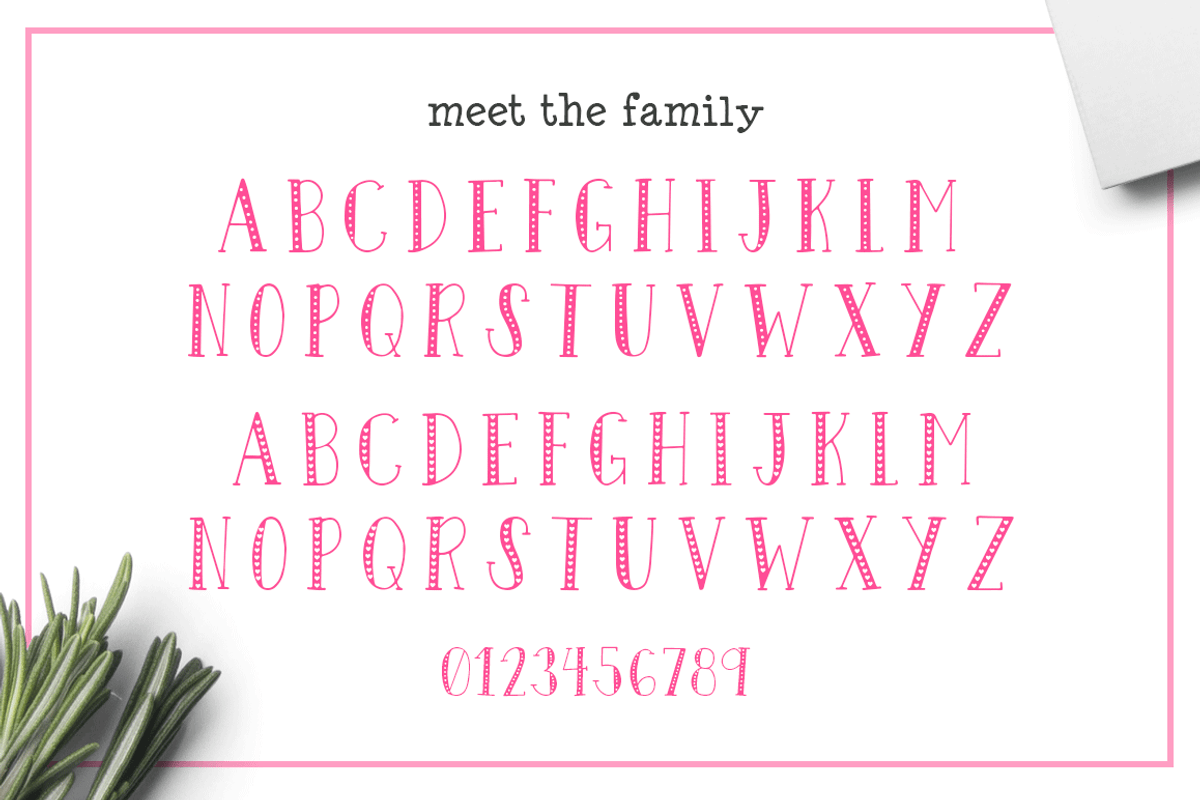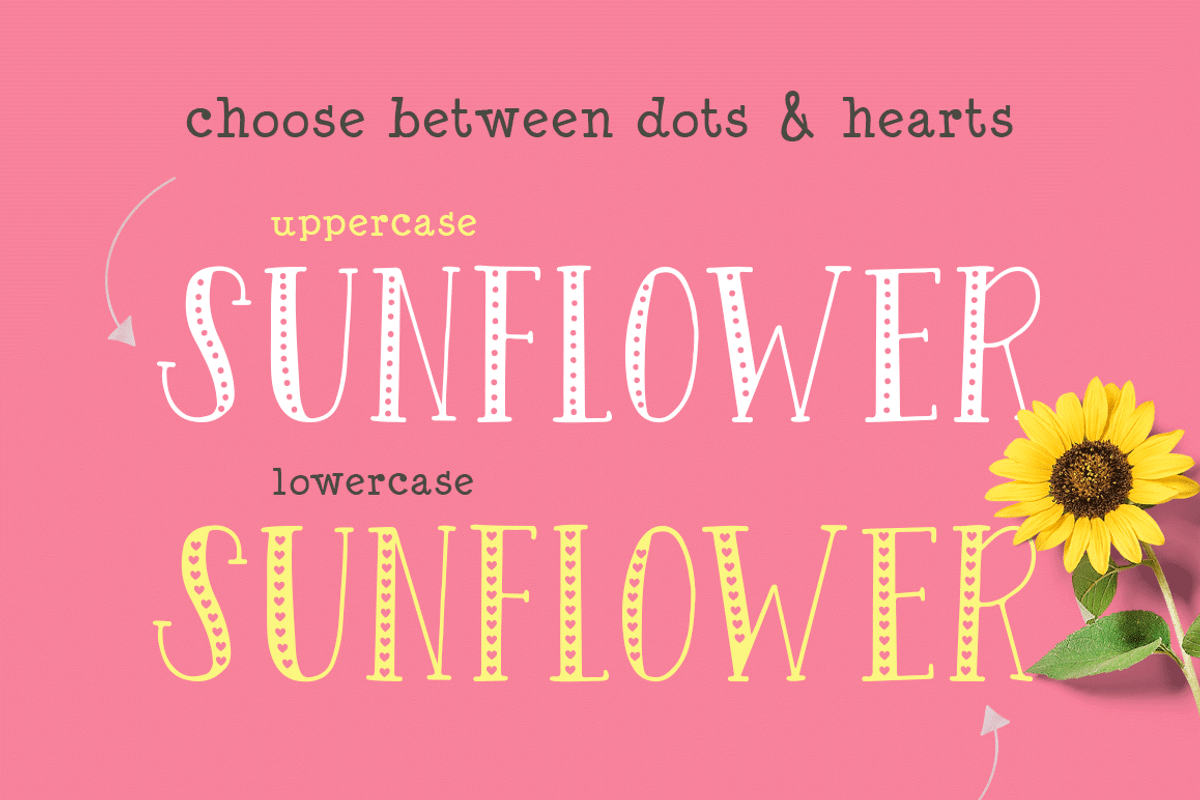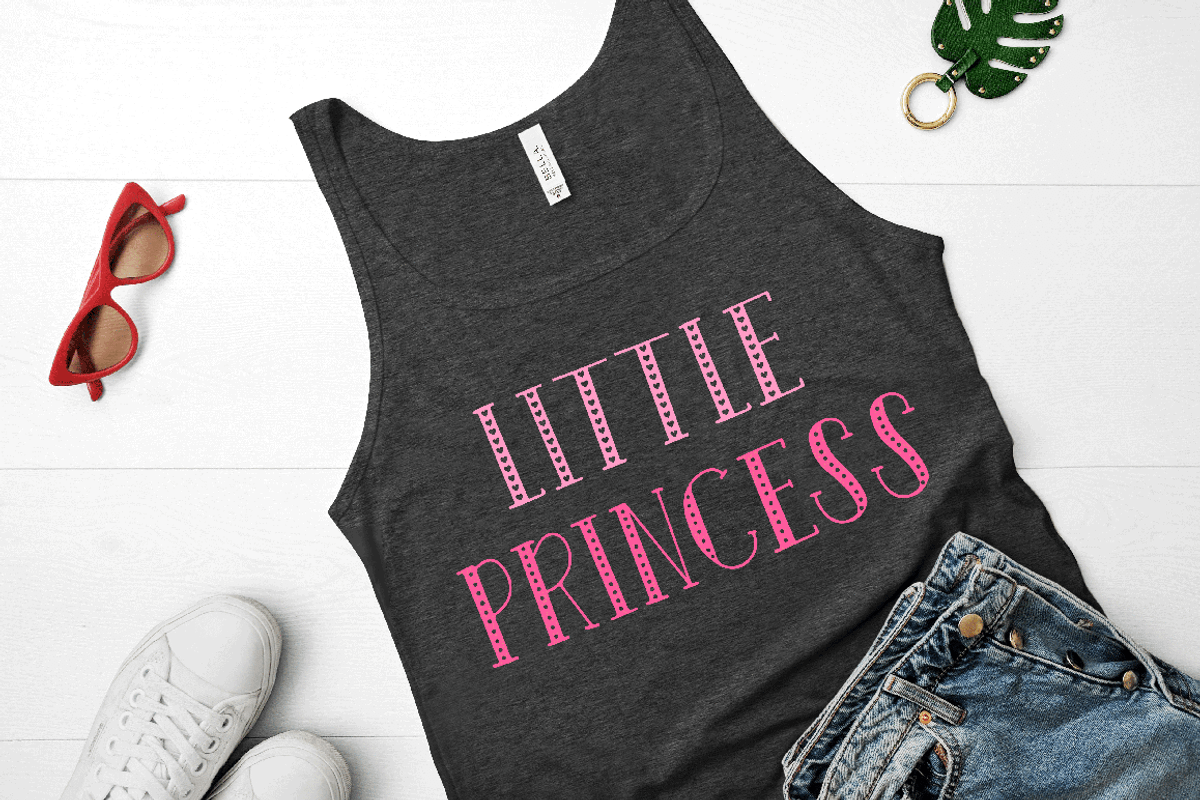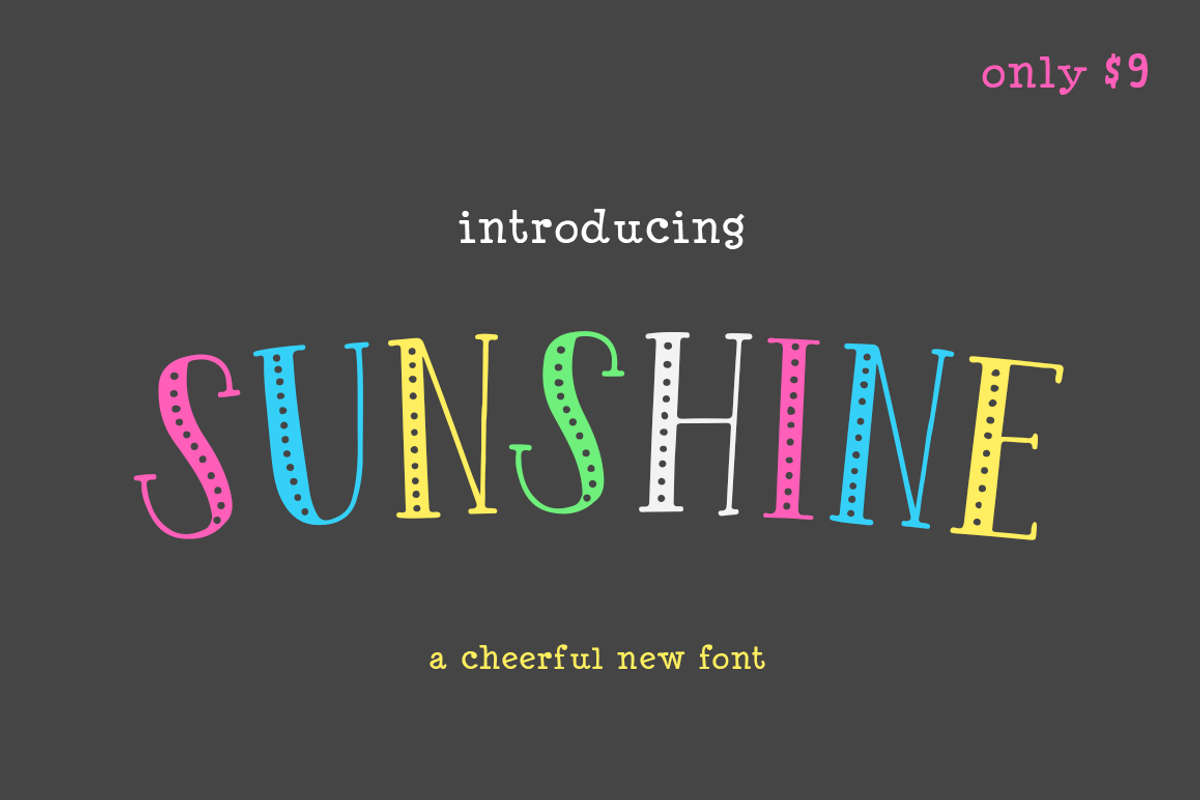
Sunshine Font (ONLY $9)
Introducing Sunshine a brand new uppercase font with two alternate styles (check image 2) font from Salt & Pepper Designs. Type the uppercase characters out to get dots and the lowercase characters to get hearts.